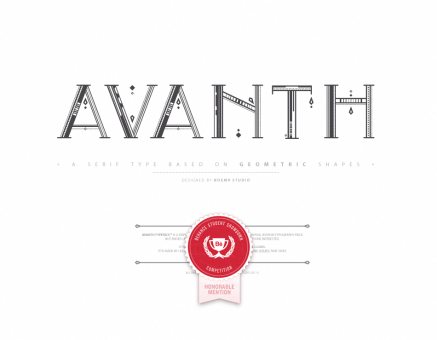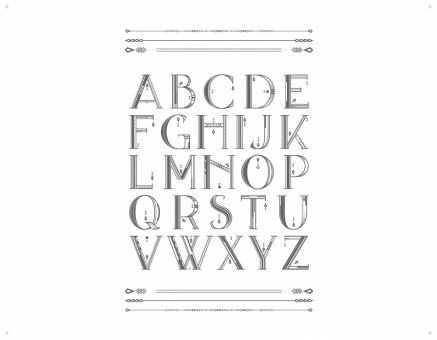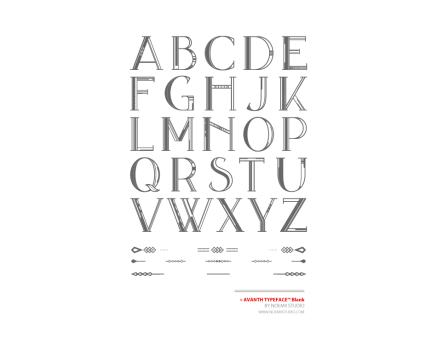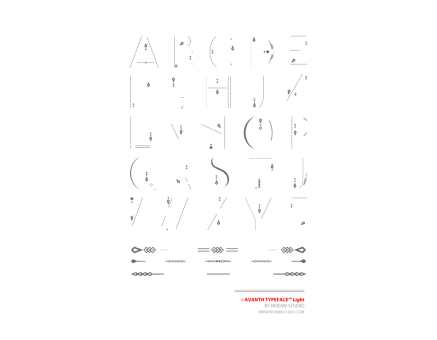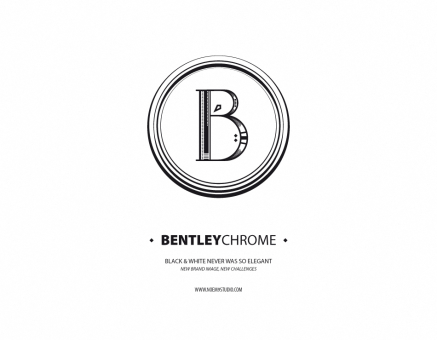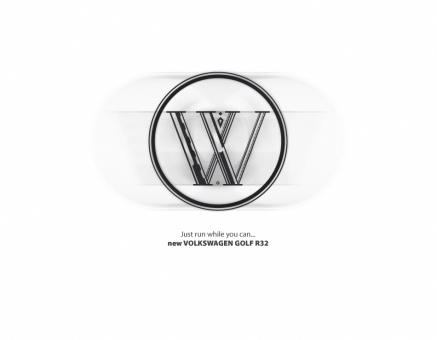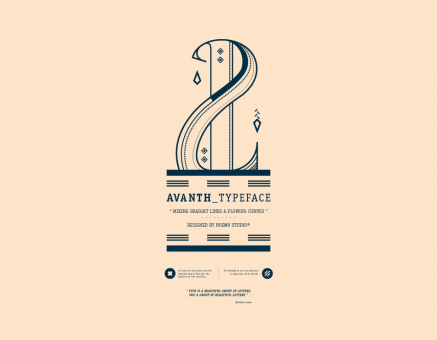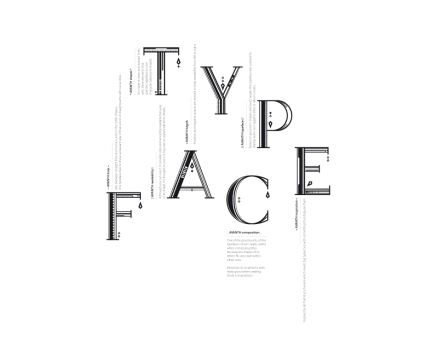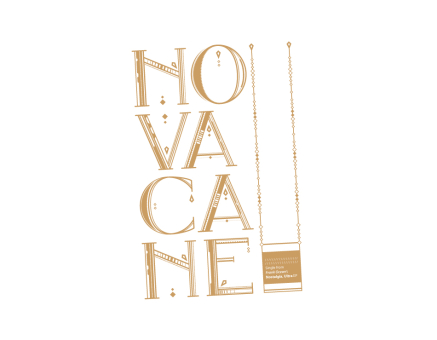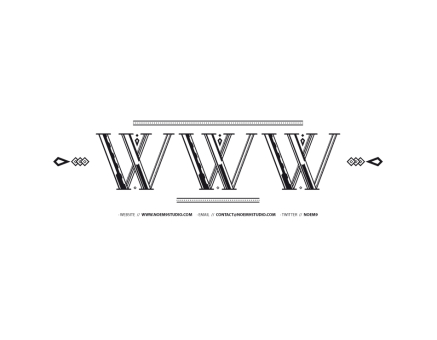
AVANTH
Avanth Typeface was born from the search of a display typeface to use in titles with a real personality, but trying to keep it legible in big sizes. Its personality is based on the small details of each letter (unique in each one of them) using just geometric simple shapes.
It features Uppercase A-Z letters with three different variations (Light, Blank & Regular).